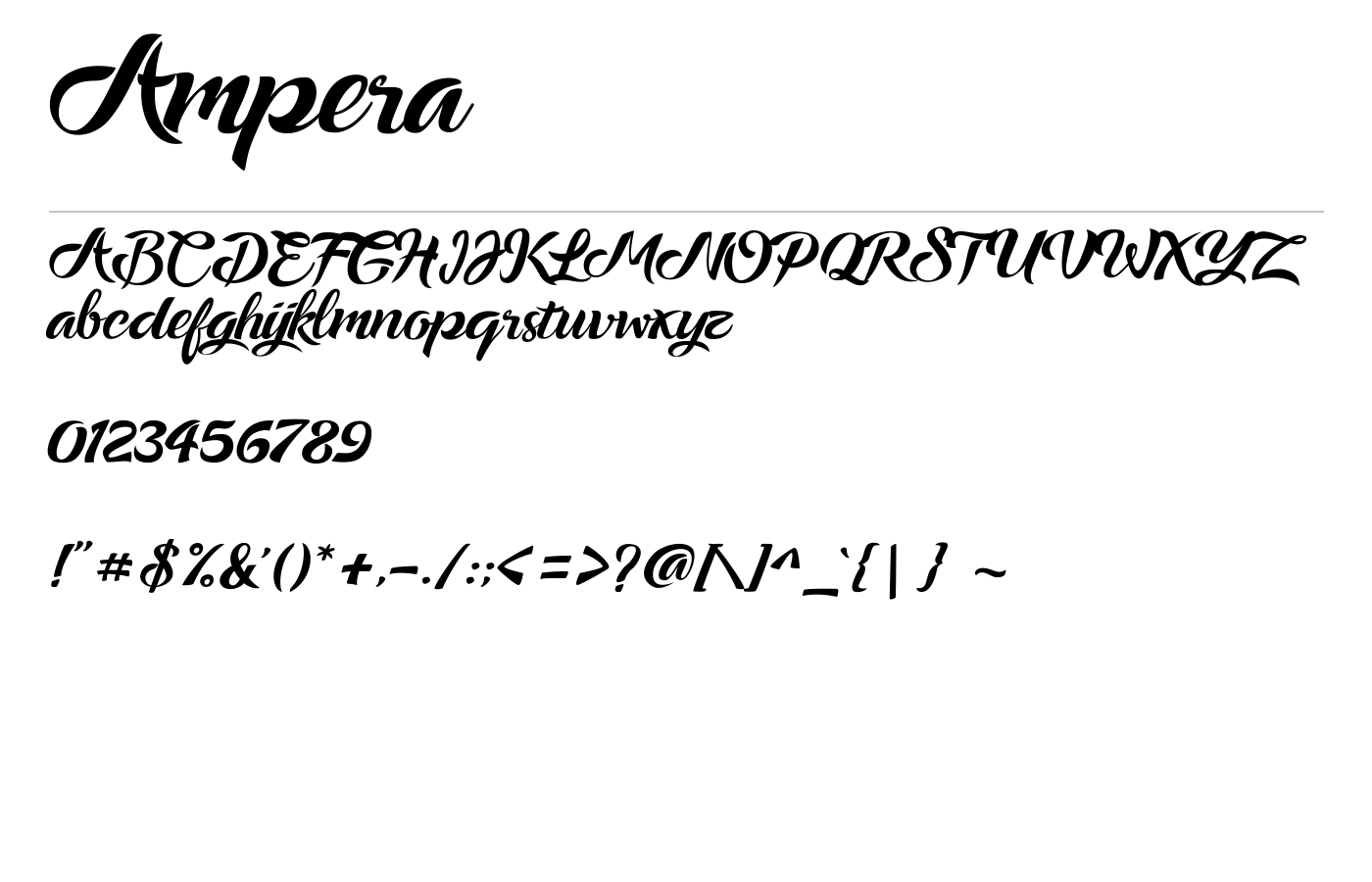
Ampera is an elegant script font featuring smooth, flowing strokes with moderate contrast and a calligraphic flair, making it ideal for sophisticated branding and stylish headlines. Its cursive letterforms with distinctive swashes offer a graceful and luxurious feel, perfect for fashion, invitations, or decorative use where a personal, artistic touch is desired. The font's clear legibility combined with its ornate style makes it a versatile choice for upscale editorial designs and creative projects.
Ampera Font
About Ampera Font